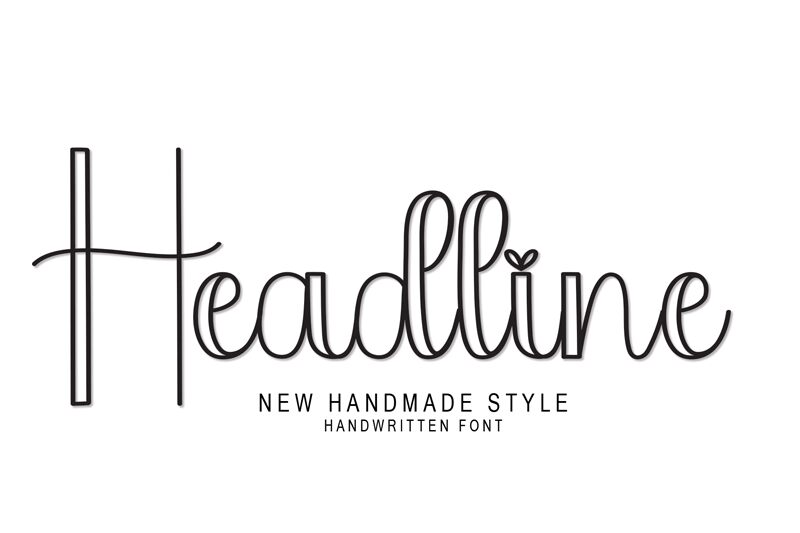
Headline
Headline font, designed by Scratchones, exudes elegance through its exquisite calligraphic style. With its striking condensed form, this font captures attention while maintaining a graceful fluidity. Each letter dances with personality, balancing bold strokes and delicate curves that evoke a sense of refinement.
The aesthetic charm of Headline makes it perfect for various applications-from sophisticated branding to eye-catching invitations and modern editorial designs. Its unique character can elevate any project, ensuring that messages are not just communicated but celebrated in style. Whether used in print or digital formats, Headline invites viewers into a world where creativity meets tradition, making it an exceptional choice for those seeking to make a memorable statement.